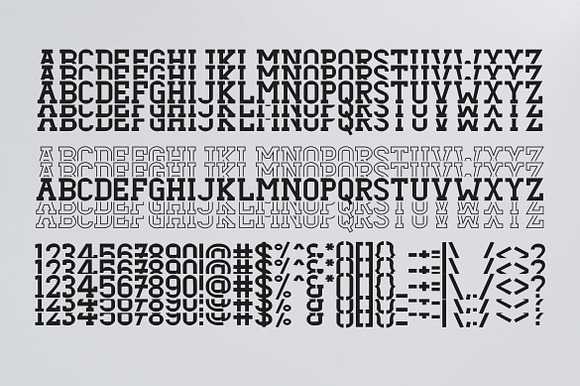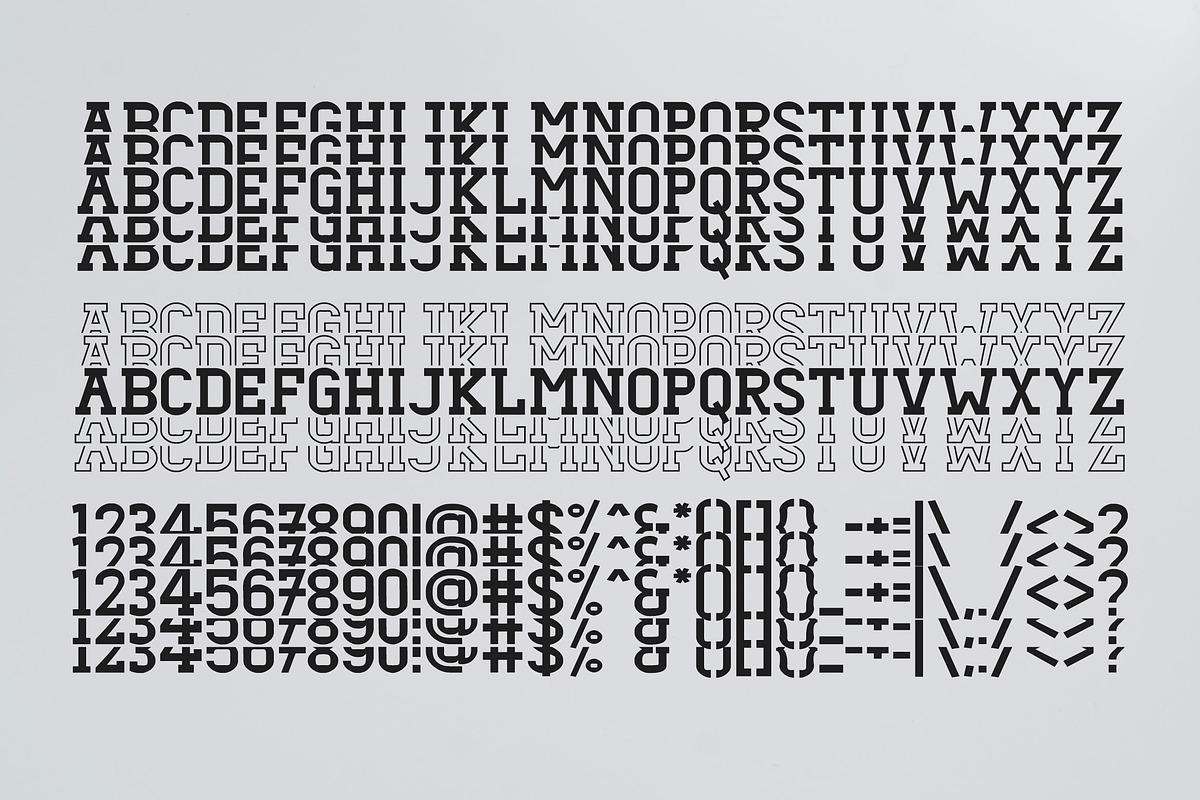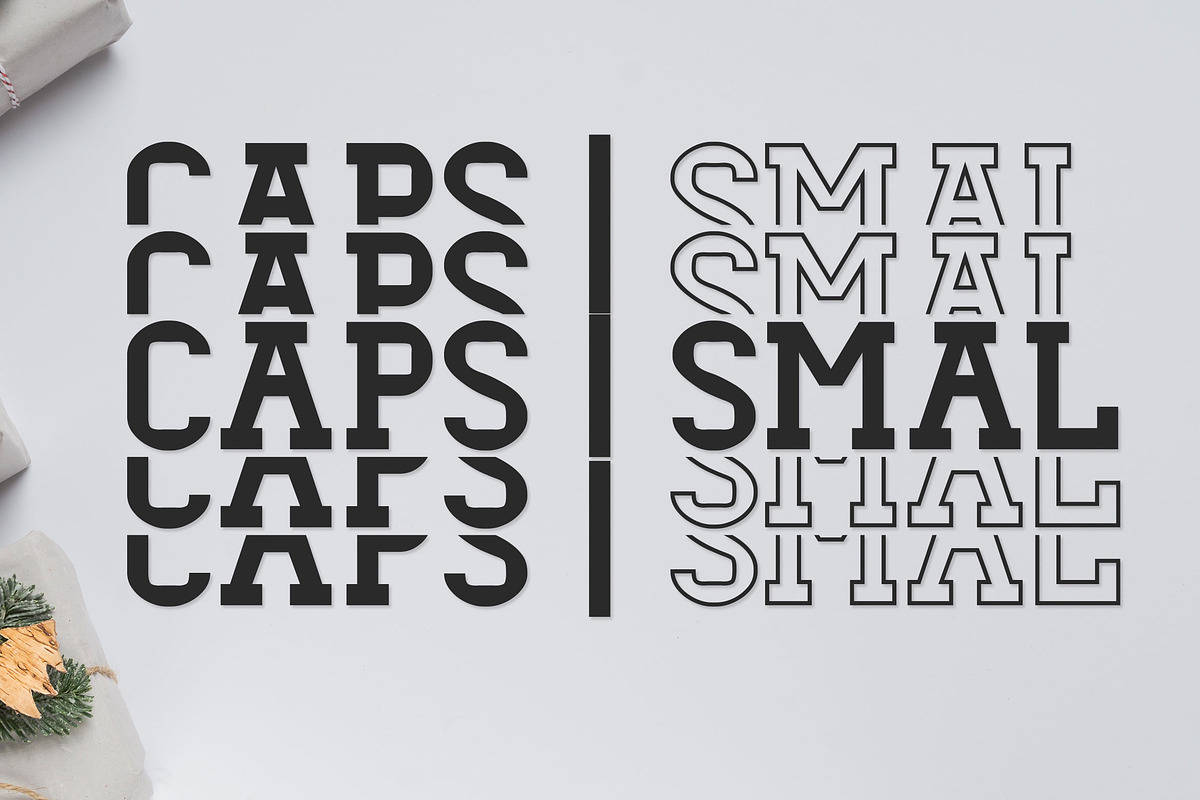
Dezire Stacked - Mirrored Font
Dezire Stacked - Mirrored Font Dezire Stacked is a geometrical playful Slab serif Bold Font with outline variations will perfectly fits for the sports and craft projects.
- Uppercase, lowercase, numbers, symbols.
- Dezire Stacked Bold
Dezire Stacked - Mirrored Font by Dasagani fits naturally into Branding, posters, packaging, typography.